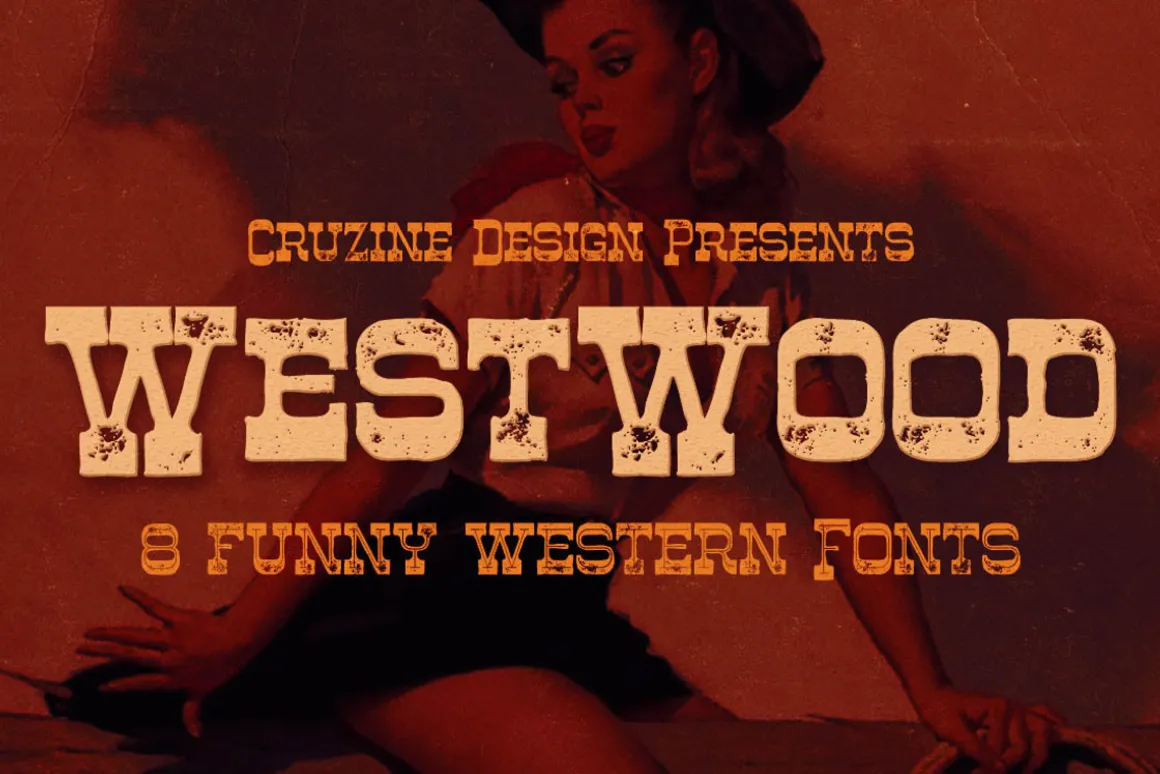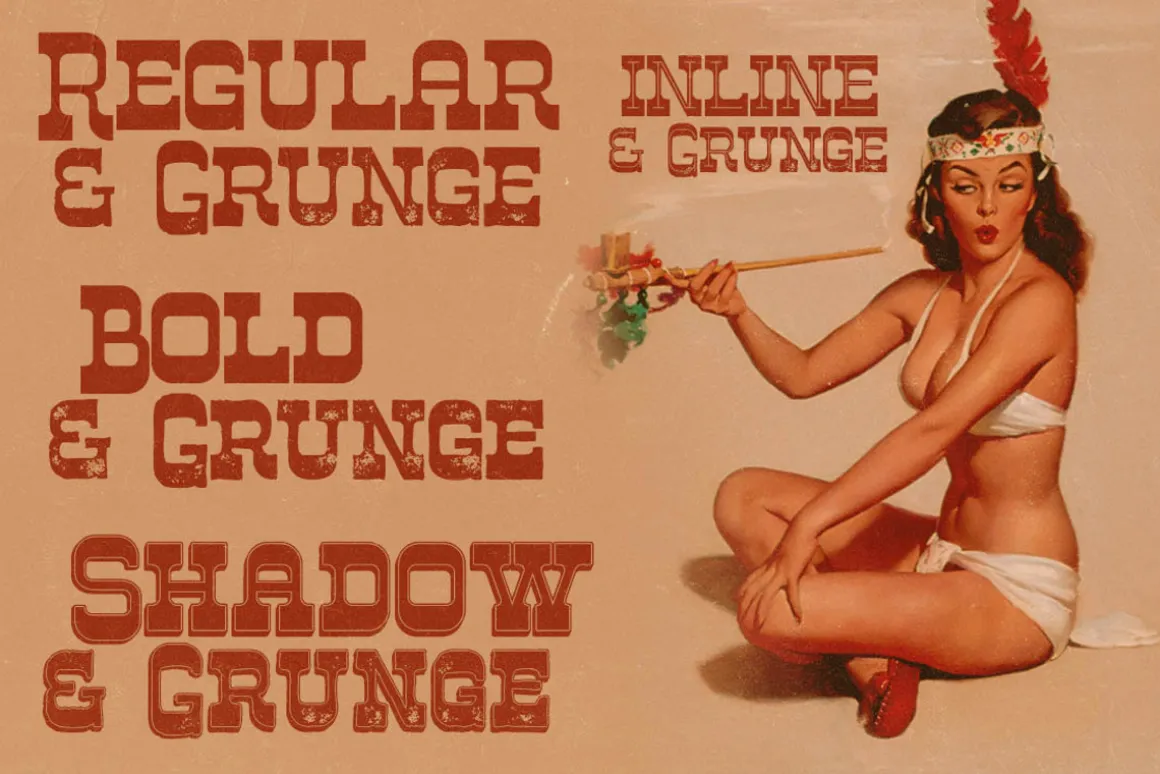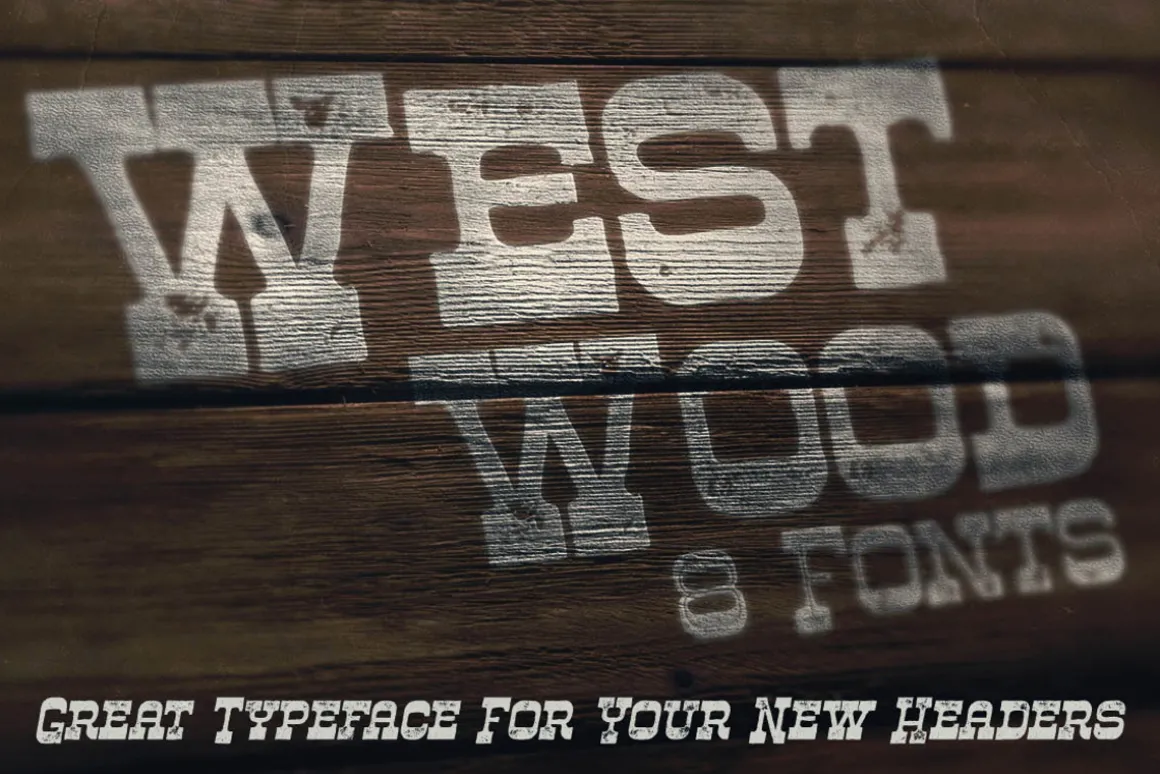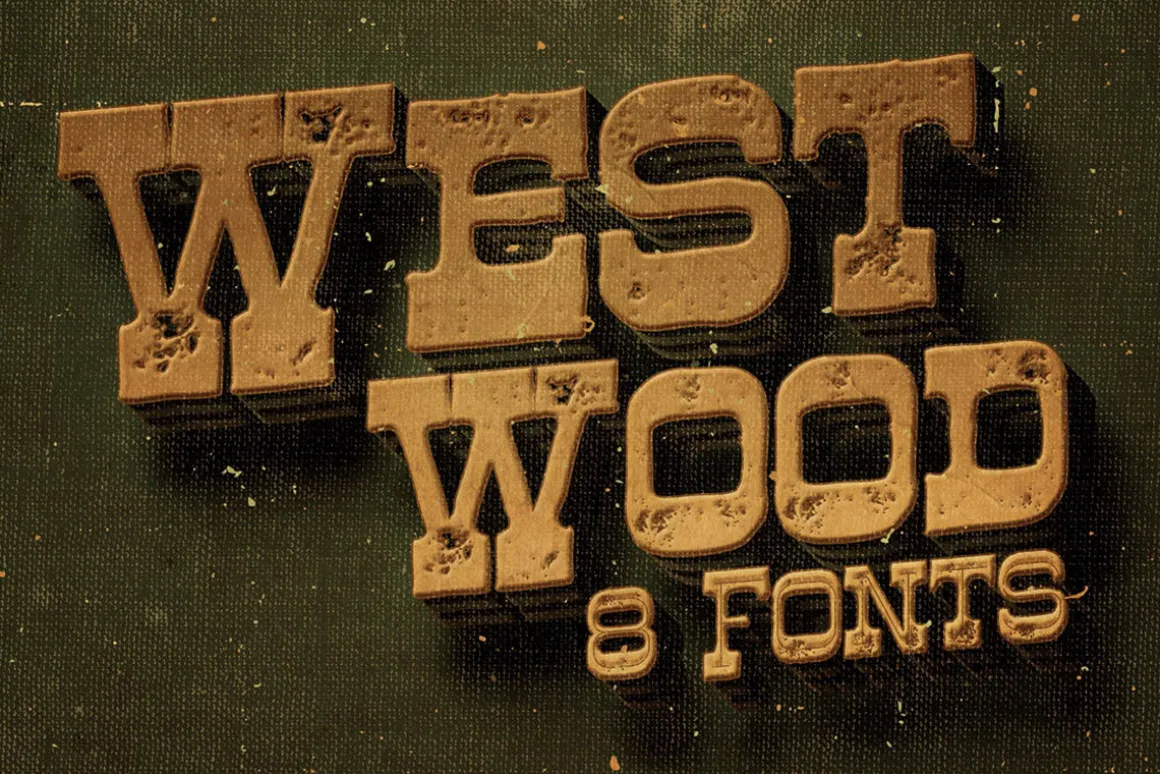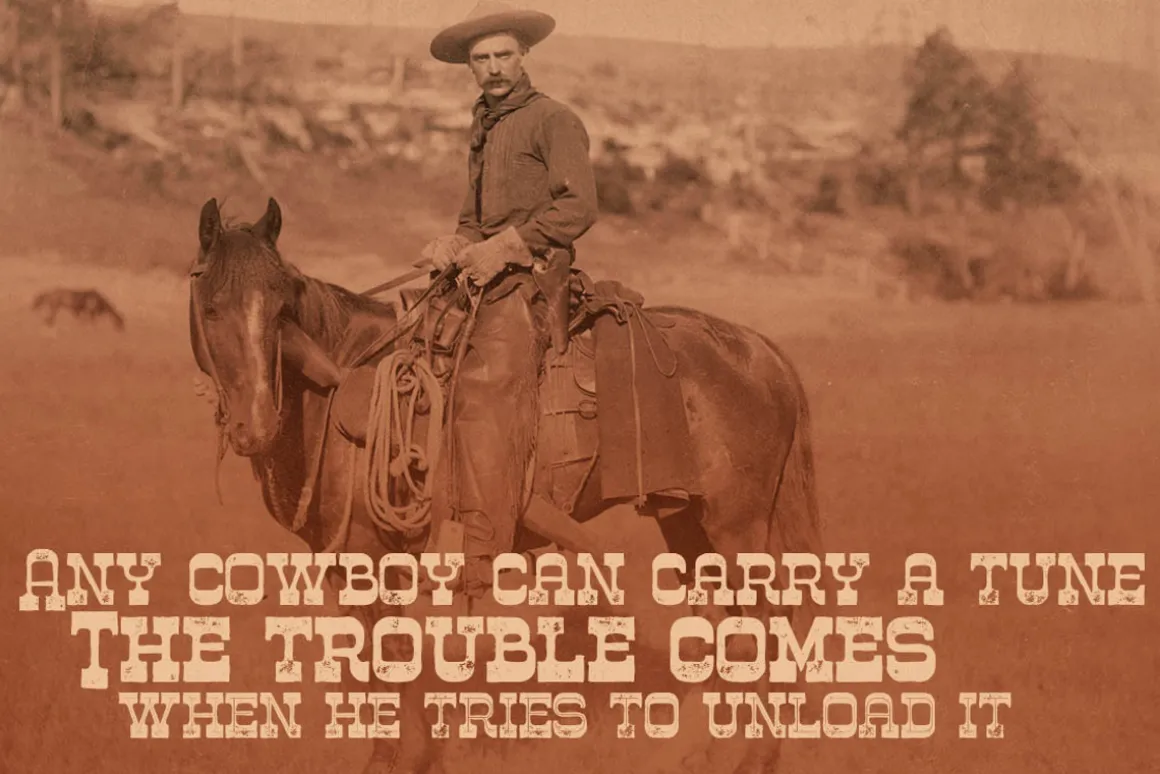
Unique & western style display font for your new funny projects. Great for retro/vintage projects!
- 8 font files (otf & ttf) – regular & grunge, inline & inline grunge, bold & bold grunge, shadow & shadow grunge